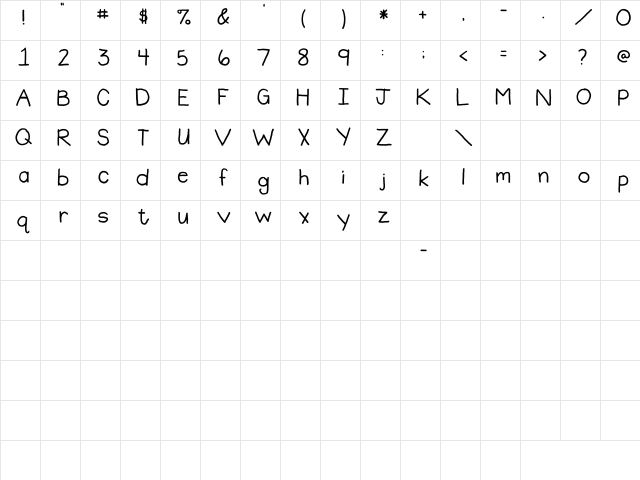
2Peas Spacey Jane 2Peas Spacey Jane
Design Context for 2Peas Spacey Jane Typeface
2Peas Spacey Jane is a composed and adaptable typeface that performs quietly and consistently across a wide range of design contexts.